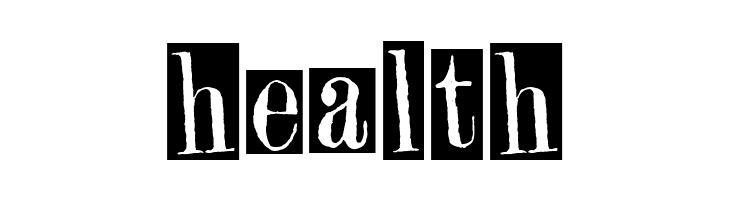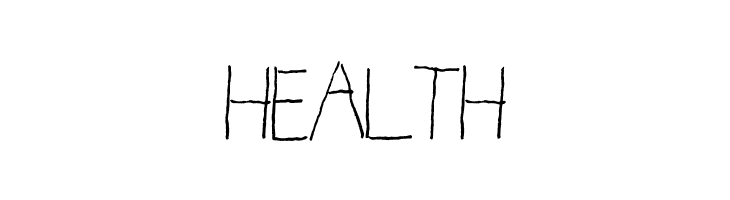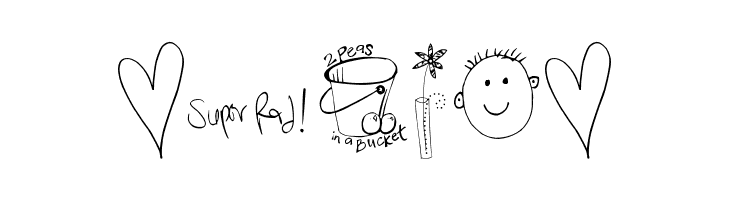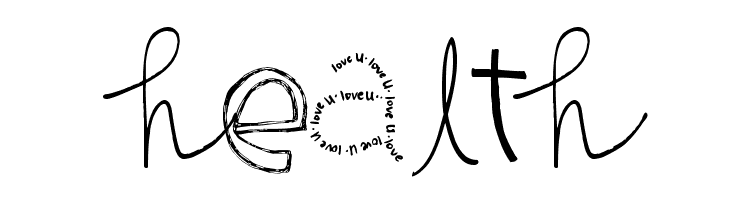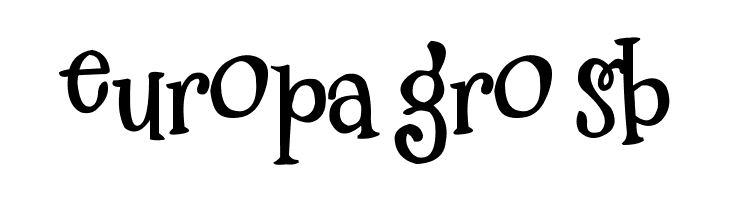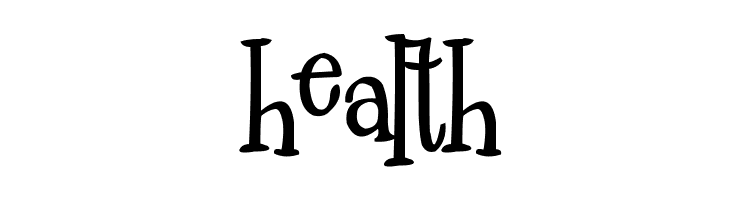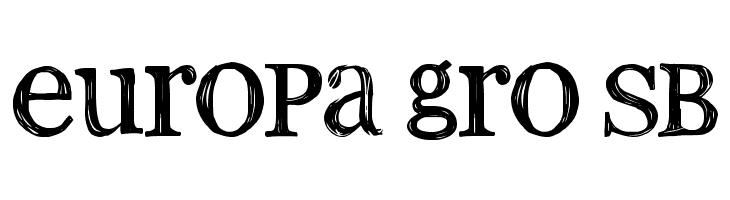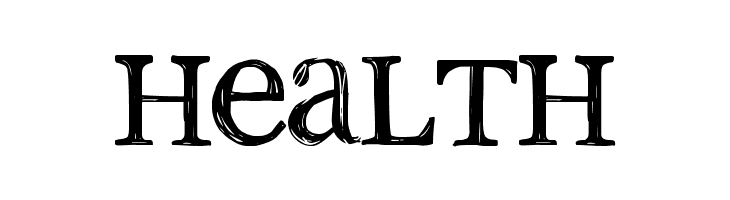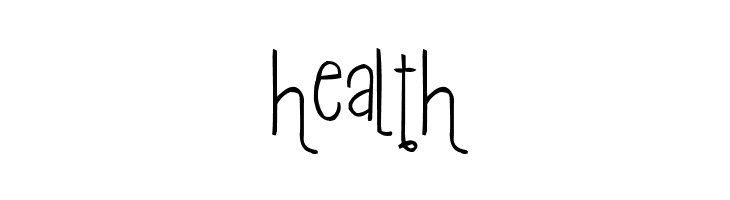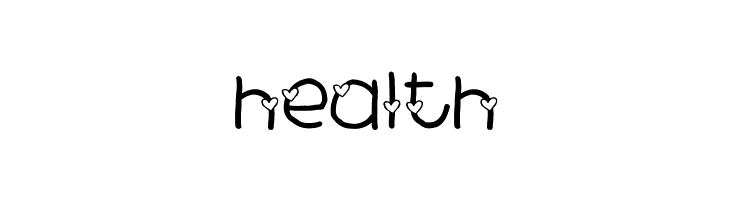
• 2Peas Drama Queen
A playful, bold display font with a whimsical, hand-drawn style.
• 2Peas GG Mix
A whimsical, eclectic font with playful, decorative characters.
• 2Peas GGs Love Me
A playful and whimsical collection of hand-drawn doodles and handwritten elements.
• 2Peas Gift
A playful, hand-drawn font with a stamp-like effect and irregular edges.
• 2Peas Goofball
A playful, hand-drawn font with tall, narrow characters and a whimsical style.
• 2Peas Grandpa
A playful, whimsical handwritten font with uneven strokes and a casual appearance.
• 2Peas Heart's Delight
A playful, heart-adorned font with a hand-drawn, whimsical style.
• 2Peas Mister Giggles
• 2Peas old type
• 2Peas Platform Shoes
A bold, expressive script font with flowing, cursive letterforms.